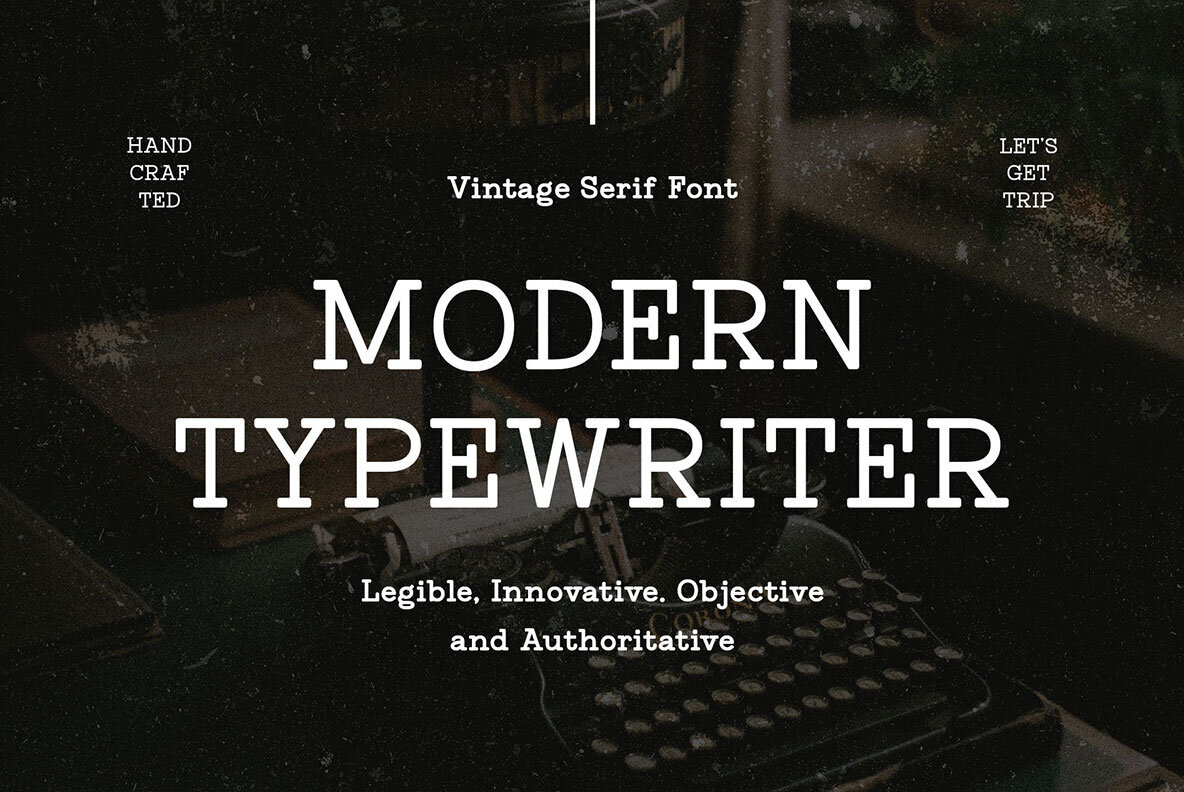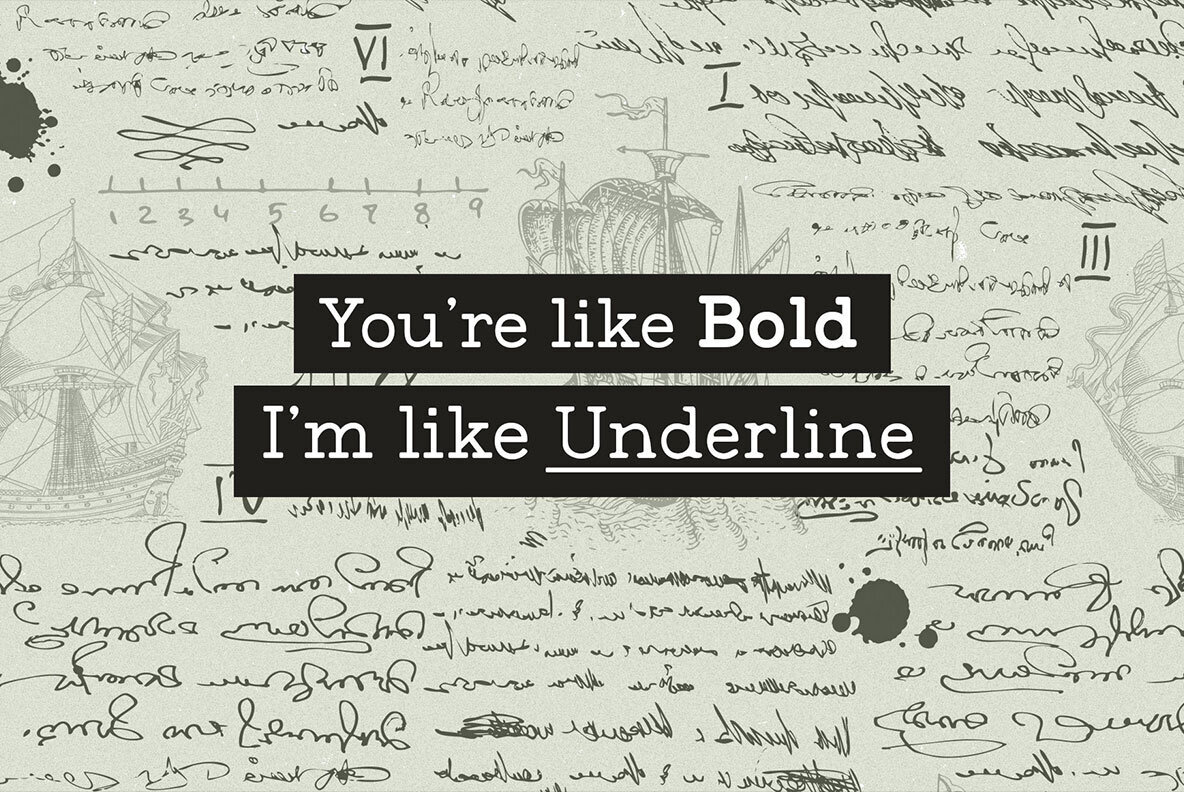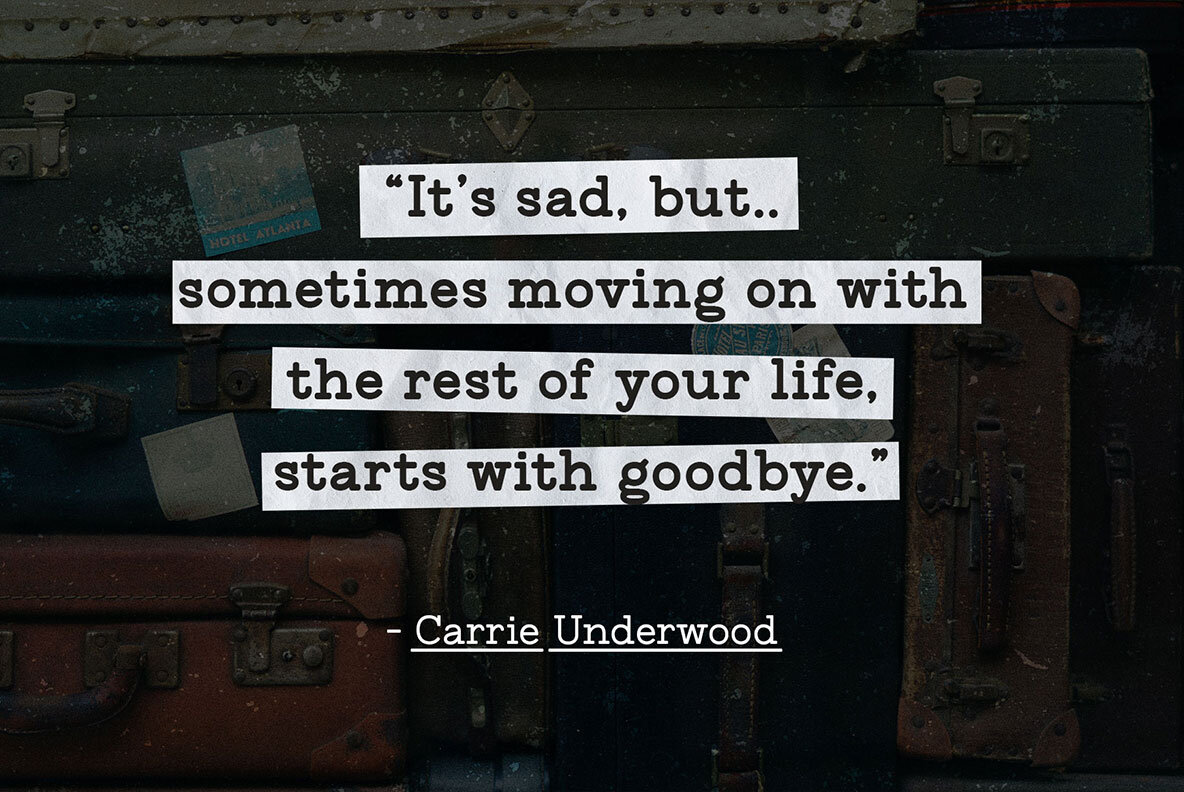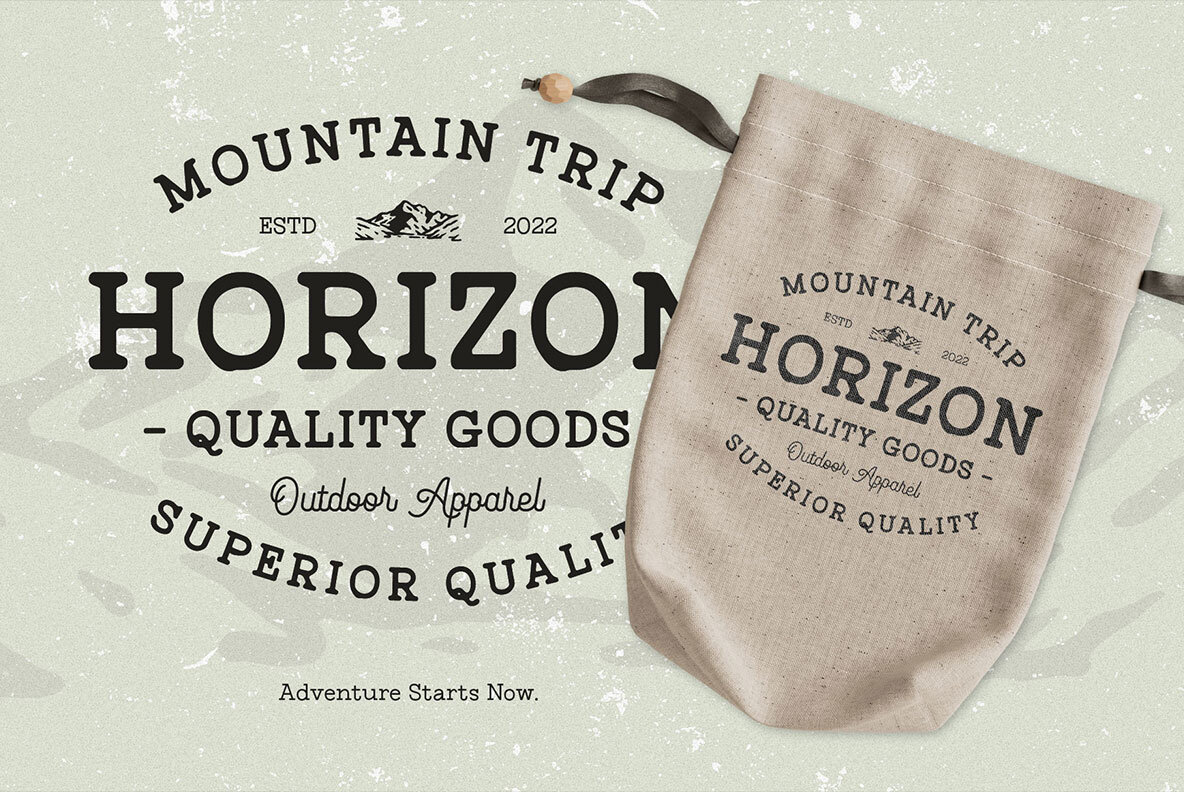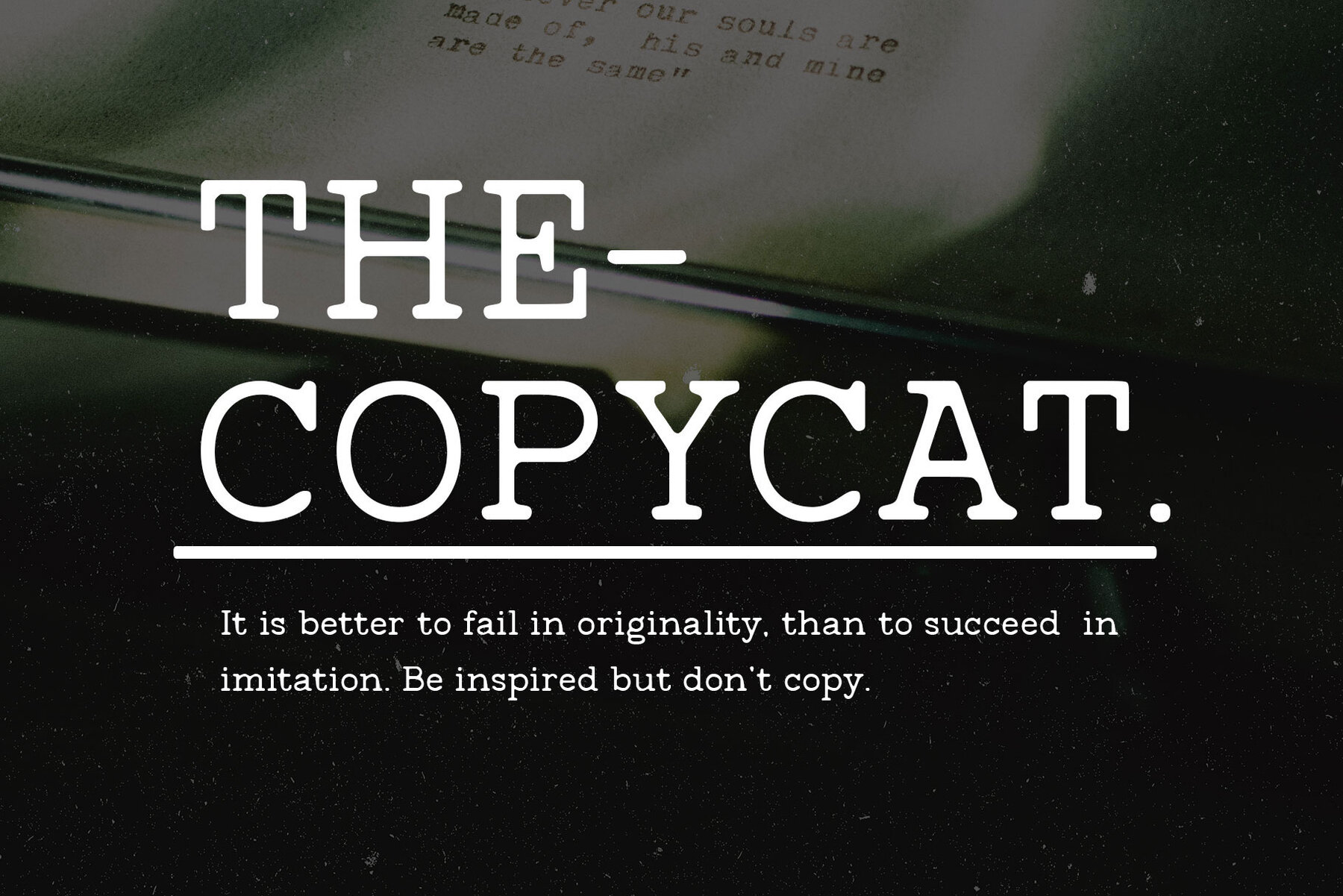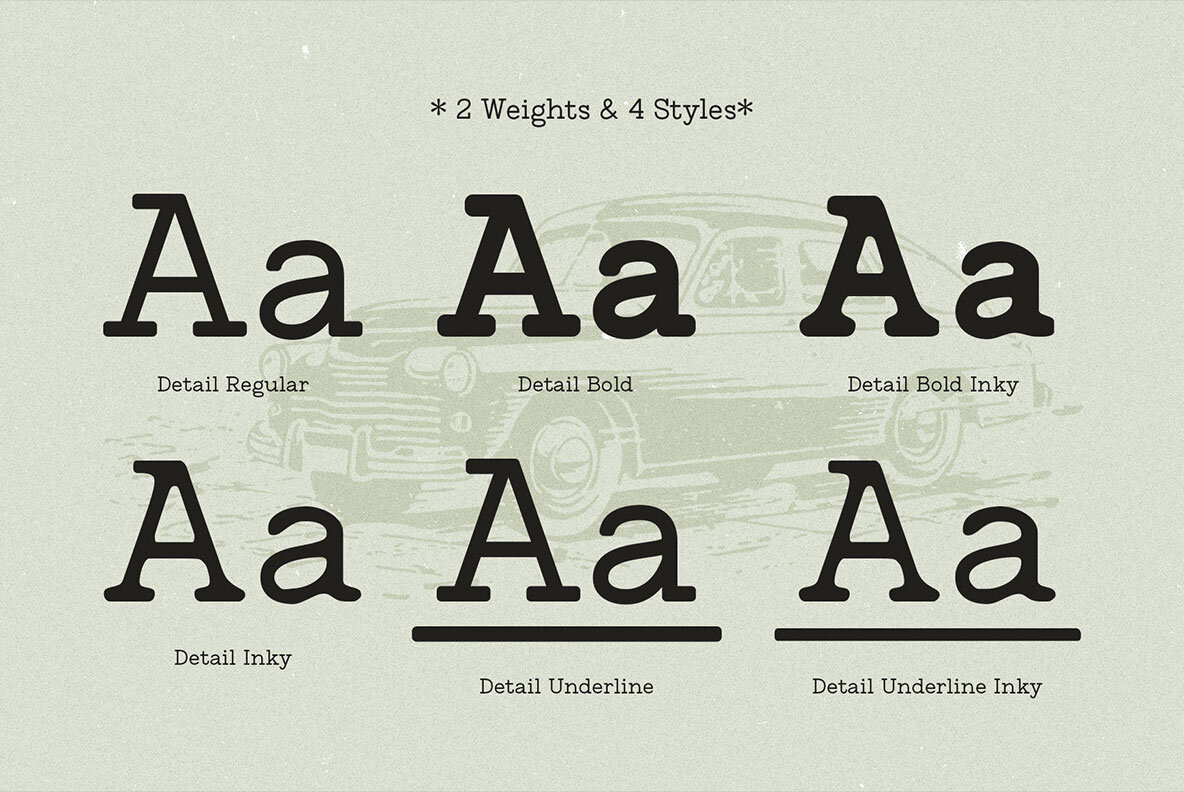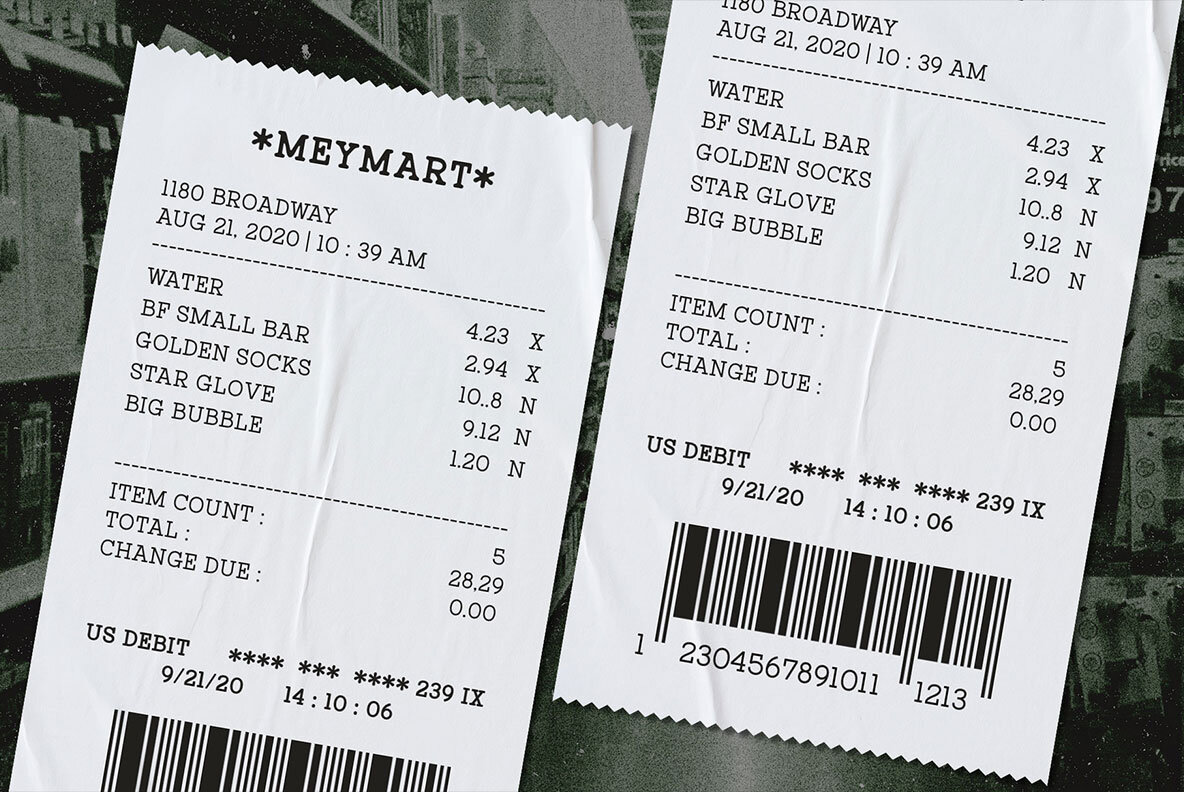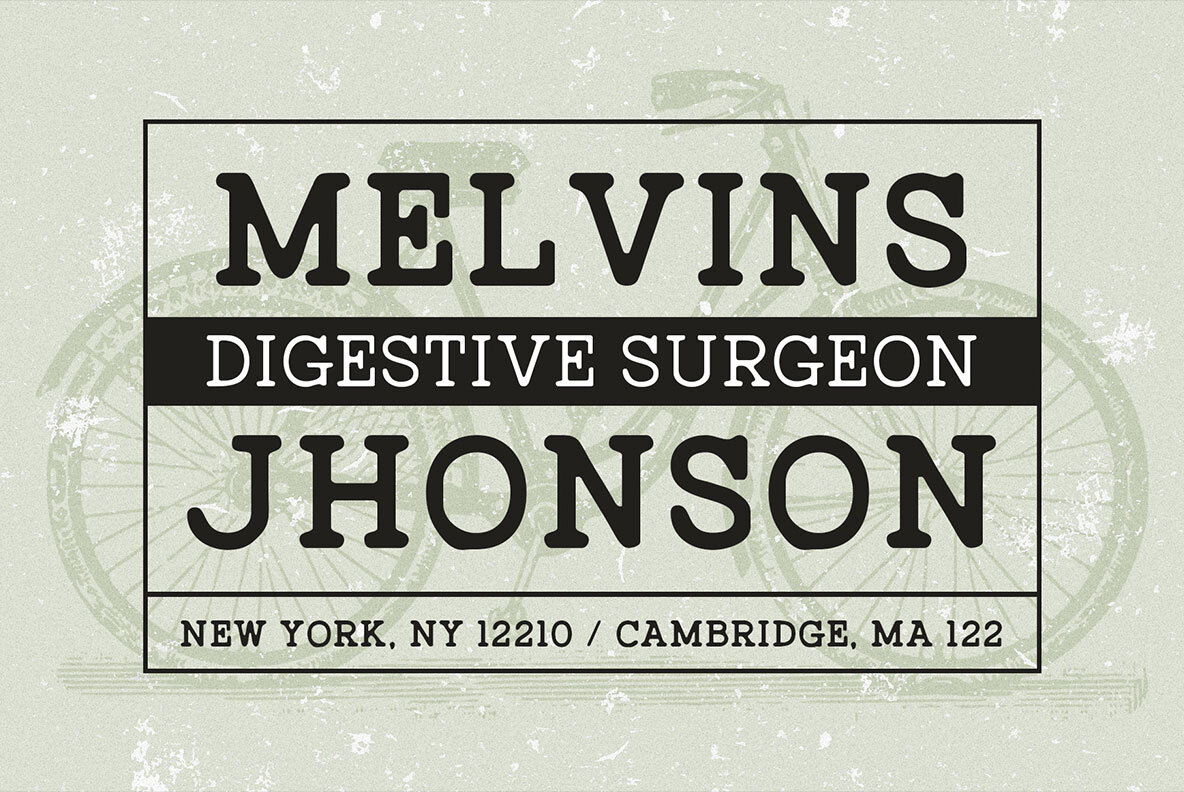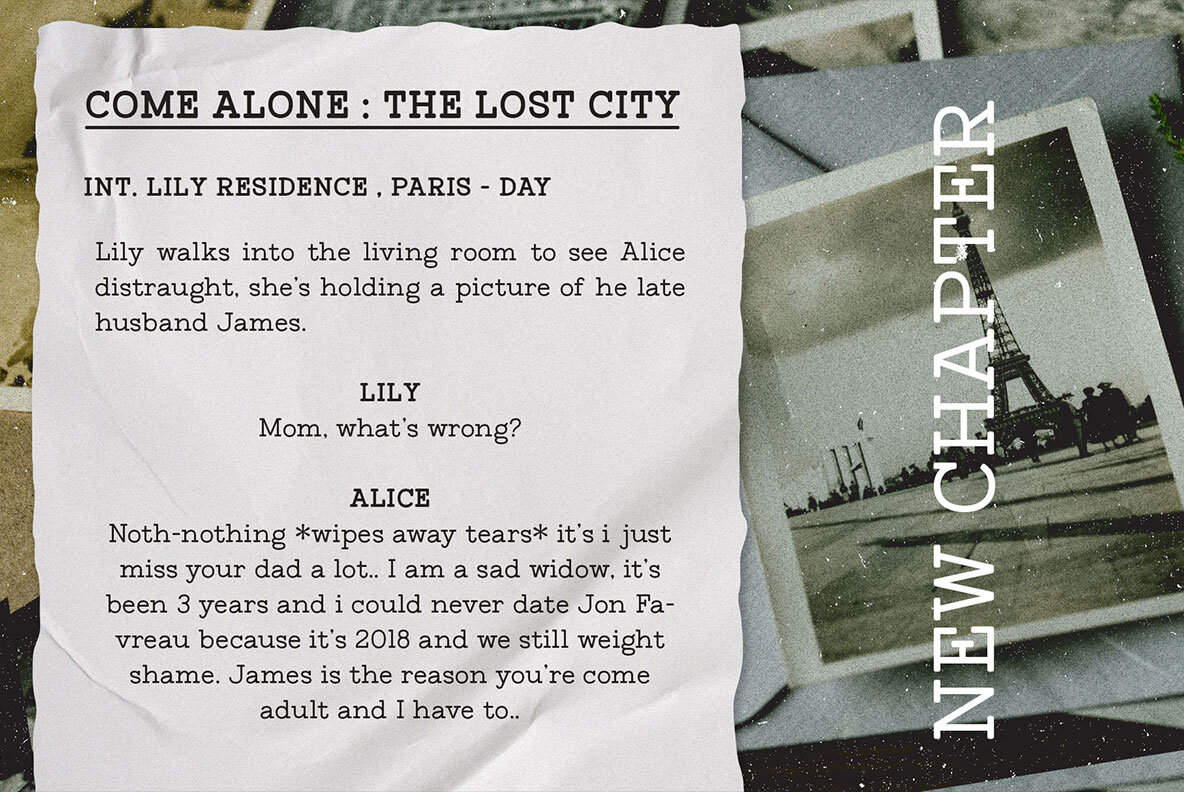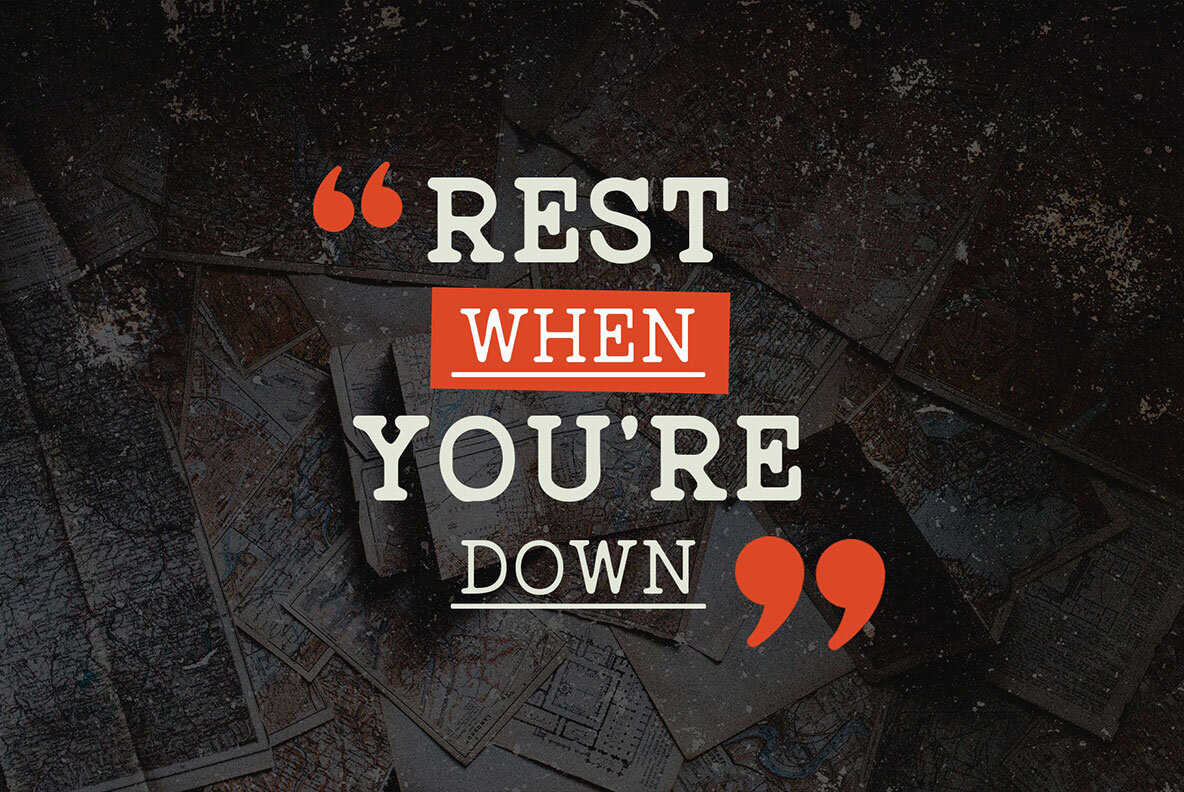
Untold History Font
Lights up your past memory with Untold History font, a classic typewriting font designed in modern style. Comes in four available styles: regular, bold, underlined, and inky. Each style has its own unique touch, allowing you to create a variety of designs. The inky style adds a subtle ink bleed effect to the letters, giving it a more authentic vintage look. Inspired by classic typing machines, this font gives the taste of the past while still being versatile enough for modern designs. Untold History is suitable for a range of projects, such as editorial designs, vintage posters, books, branding, and quotes. What you'll get : - Untold History-Regular.ttf - Untold History-Regular.otf - Untold History-Bold.ttf - Untold History-Bold.otf - Untold History-Underline.ttf - Untold History-Underline.otf - Untold History-Inky.ttf - Untold History-Inky.otf - Untold History-Underline Inky.ttf - Untold History-Underline Inky.otf - Untold History-Bold Inky.ttf - Untold History-Bold Inky.otf Fonts featured : - Uppercase - Lowercase - Numbers & symbols - Punctuation - Stylistic alternates - Multilingual support